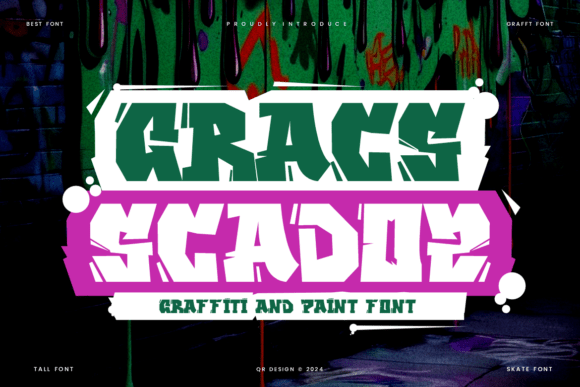
Gracs Scadoz Font: The Ultimate Display Font for Bold Branding
In the world of typography, fonts play a crucial role in conveying the tone and personality of a brand. When it comes to creating a lasting impression, a bold and authentic display font is essential. This is where Gracs Scadoz Font comes into play. Designed to make a statement, Gracs Scadoz Font is a versatile and attention-grabbing typeface that is perfect for a wide range of branding projects, from logos and sports to advertising and more.
The Characteristics of Gracs Scadoz Font
Gracs Scadoz Font is a bold and authentic display font that boasts a unique and distinctive style. Its rugged and sturdy appearance makes it perfect for headlines, titles, and short texts. The font’s bold weight ensures that it stands out in a crowded visual landscape, making it ideal for logos, posters, and advertisements.
Versatility at Its Best
One of the key benefits of Gracs Scadoz Font is its versatility. The font is suitable for a wide range of contexts, from sports and gaming to fashion and lifestyle. Whether you’re looking to create a bold logo, a striking poster, or a captivating advertisement, Gracs Scadoz Font is the perfect choice. Its authentic and rugged appearance ensures that it blends seamlessly with a variety of design styles, making it a go-to font for designers and branding experts.
Why Choose Gracs Scadoz Font?
So, why choose Gracs Scadoz Font over other display fonts? Here are just a few reasons:
- Bold and Authentic: Gracs Scadoz Font boasts a bold and authentic style that is sure to grab attention.
- Versatile: The font is suitable for a wide range of contexts, from sports and gaming to fashion and lifestyle.
- Easily Readable: Despite its bold weight, Gracs Scadoz Font is easily readable, making it perfect for headlines, titles, and short texts.
- Unique Style: The font’s unique and distinctive style ensures that it stands out in a crowded visual landscape.
How to Use Gracs Scadoz Font
Using Gracs Scadoz Font is easy. Here are a few tips to get you started:
- Headlines and Titles: Use Gracs Scadoz Font for headlines and titles to grab attention and create a lasting impression.
- Logos and Branding: The font is perfect for logos and branding projects, adding a bold and authentic touch to your visual identity.
- Advertising and Marketing: Use Gracs Scadoz Font in your advertising and marketing materials to create eye-catching and effective campaigns.
- Short Texts: The font is suitable for short texts, such as taglines and descriptions, where a bold and authentic style is required.
Tips for Pairing Gracs Scadoz Font with Other Fonts
Pairing Gracs Scadoz Font with other fonts can create a visually appealing and effective design. Here are a few tips:
- Contrasting Fonts: Pair Gracs Scadoz Font with contrasting fonts, such as a sans-serif or script font, to create visual interest.
- Neutral Fonts: Use Gracs Scadoz Font with neutral fonts, such as Arial or Helvetica, to create a clean and elegant design.
- Experiment with Font Sizes: Experiment with different font sizes to create a visually appealing hierarchy of information.
In conclusion, Gracs Scadoz Font is a bold and authentic display font that is perfect for a wide range of branding projects. Its versatility, unique style, and easily readable design make it a go-to font for designers and branding experts. Whether you’re looking to create a bold logo, a striking poster, or a captivating advertisement, Gracs Scadoz Font is the perfect choice.